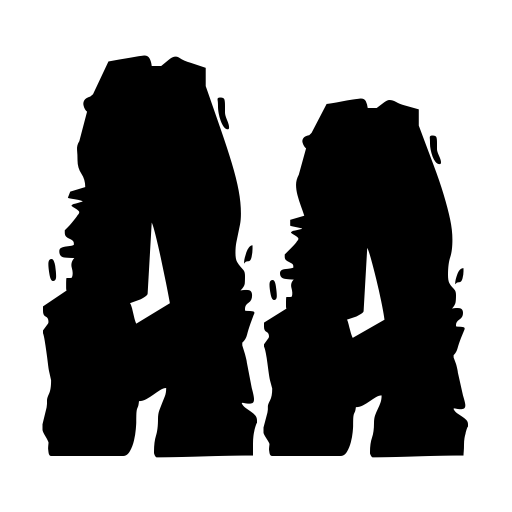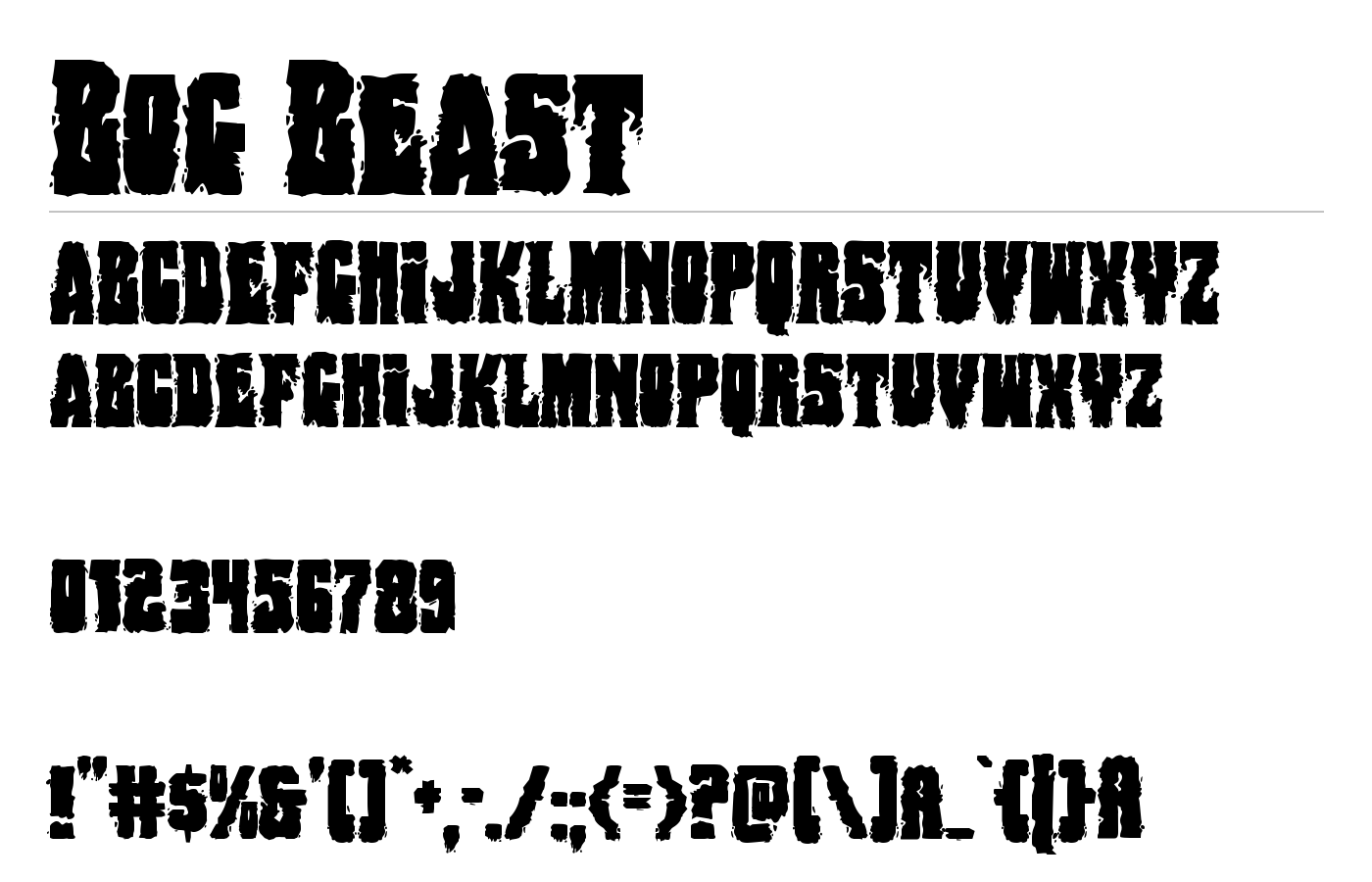
Bog Beast is a bold, condensed display font with a rough, distressed texture that gives it a gritty, monstrous character. Its heavy weight and jagged edges create a striking, dramatic impact, perfect for horror-themed designs, posters, or branding that needs a dark, edgy vibe. This all-caps font stands out in headlines where a bold, fearsome look is desired.
Bog Beast Font
About Bog Beast Font